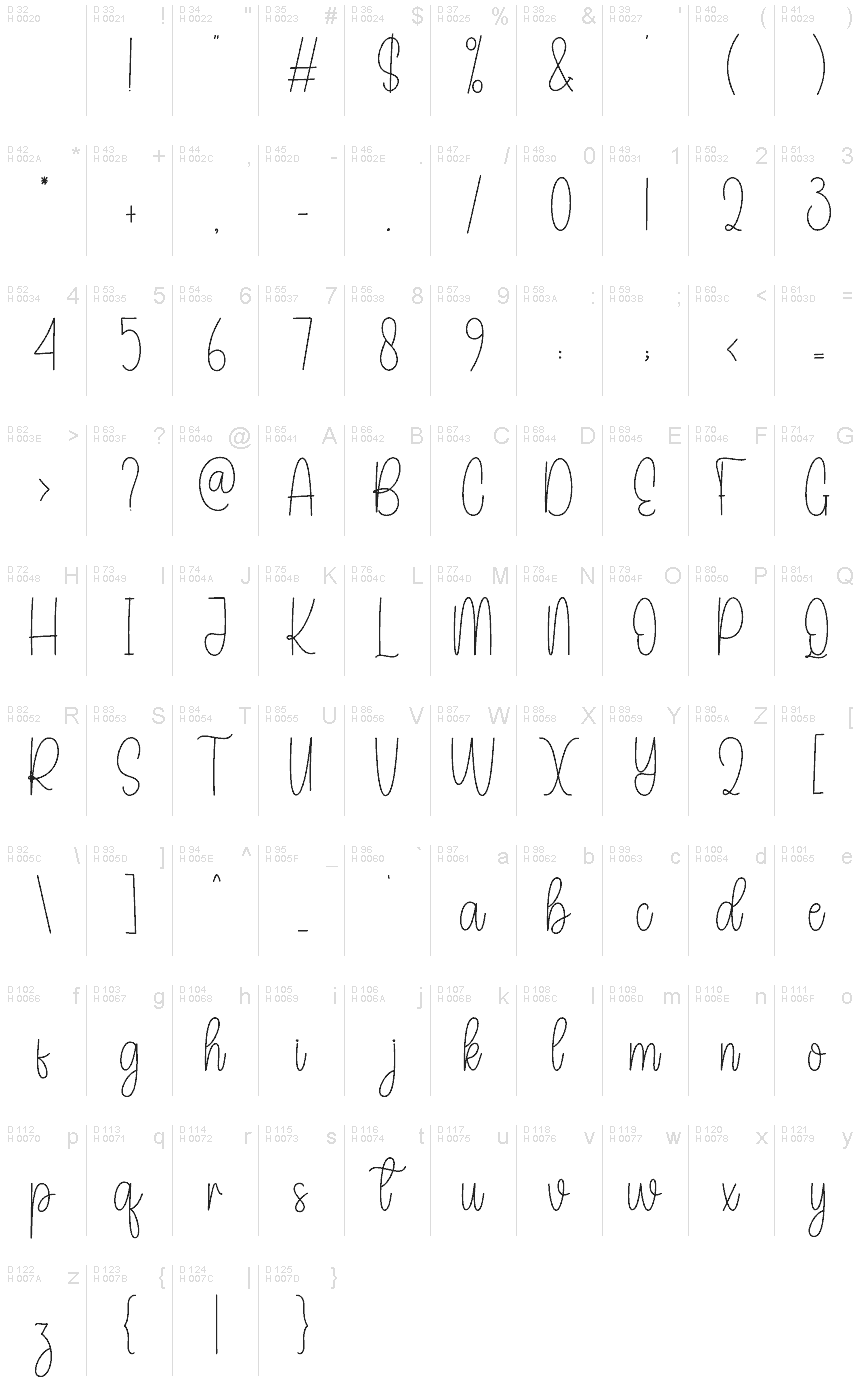
Begonias
Begonias font showcases a smooth flow with an elegant script style that exudes modern aesthetic. With its friendly feel and casual elegance, this light handwritten font by Andi Moz is both approachable and graceful, adding beauty to any project without sacrificing professional qualities.
Begonias is ideal for advertising campaigns, book design, social media content, restaurant menus, website design, invitations, or postcards. Utilize it in branding projects like logos or product packaging/labels. Whether used for printed or digital content development, this free handwritten font promises exceptional quality.